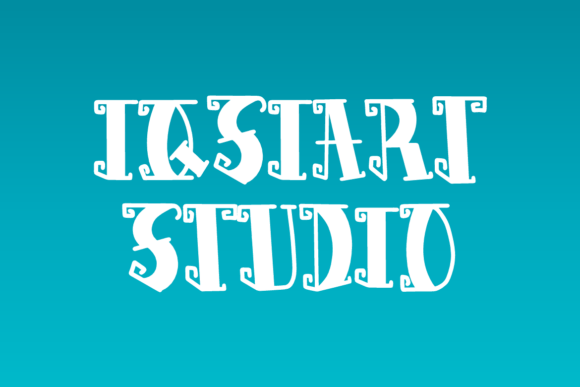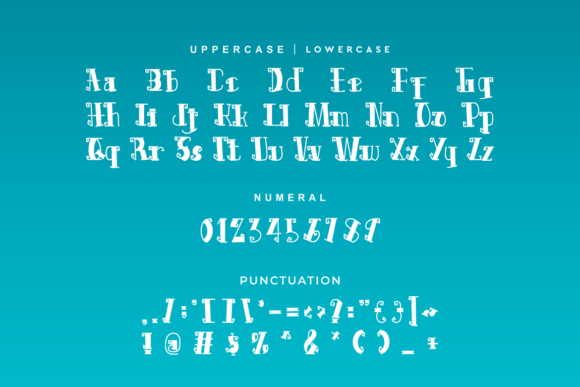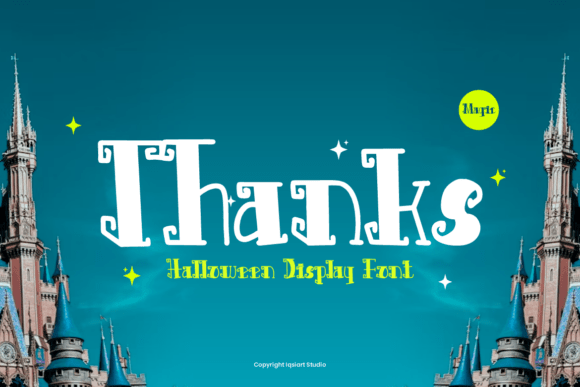
Introduction to Hallow Mantra Font
Hallow Mantra is a bold Halloween display font that perfectly blends spooky charm with playful creativity.
Featuring whimsical letterforms with quirky serifs, subtle curves, and dynamic stroke contrasts, it brings a magical and slightly eerie personality to every design This typeface is ideal for Halloween party invitations, haunted house posters, themed merchandise, Cricut crafts, and bold seasonal branding.
Key Features of Hallow Mantra Font